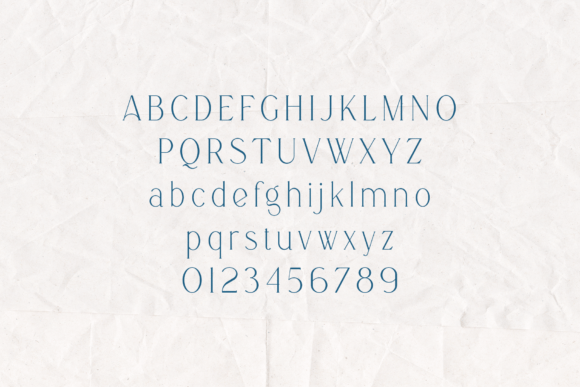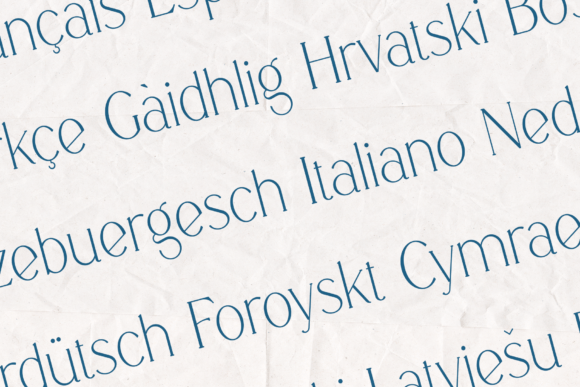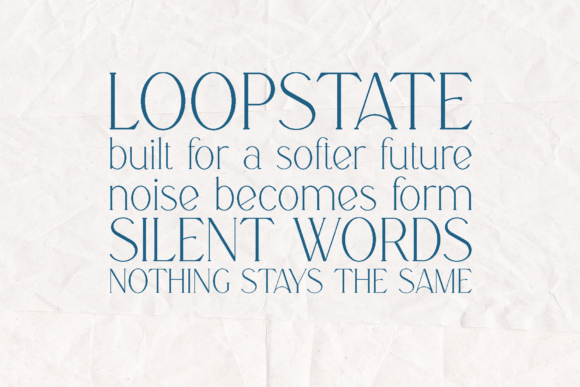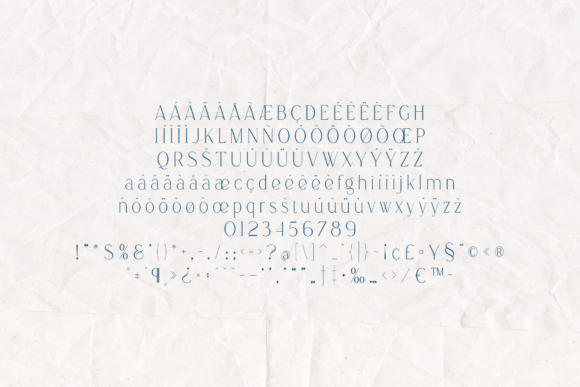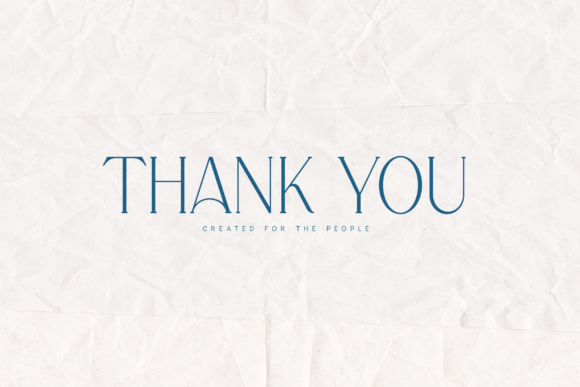
Boketto Font: Elevate Your Design with Elegant Contemporary Serif Typography
In the world of typography, few fonts manage to convey a sense of calm, poetry, and refinement. Boketto, an elegant contemporary serif font, is one such exceptional design that embodies these qualities. With its graceful curves, soft contrast, and gentle organic rhythm, Boketto is the perfect choice for designers seeking to create sophisticated and timeless visual storytelling.
Characteristics of Boketto Font
Boketto’s design is characterized by its delicate serifs, balanced proportions, and quiet sophistication. These features make it an ideal font for editorial design, book covers, branding, invitations, quotes, packaging, and other applications where elegance and atmosphere are paramount. The font’s subtle beauty, inspired by introspection, adds a layer of depth to any design, making it perfect for headlines, short passages, and expressive compositions.
Design Applications of Boketto
Boketto’s versatility makes it suitable for a wide range of design applications. Its elegant and refined nature makes it perfect for:
- Editorial design: Create stunning magazine layouts, articles, and features with Boketto’s elegant typography.
- Book covers: Give your book a sophisticated and eye-catching cover with Boketto’s beautiful serifs.
- Branding: Establish a strong brand identity with Boketto’s unique and memorable typography.
- Invitations: Create elegant and sophisticated invitations for special occasions, such as weddings, galas, and more.
- Quotes: Add a touch of elegance to your inspirational quotes and phrases with Boketto’s beautiful typography.
- Packaging: Elevate your product packaging with Boketto’s refined and sophisticated design.
Typography Features of Boketto
Boketto is more than just a beautiful font; it also offers a range of features that make it practical and versatile. Some of its key typography features include:
- Full character set: Boketto includes a comprehensive character set, ensuring that you have access to all the characters you need.
- Multilingual support: With extensive multilingual support, Boketto is suitable for use in a variety of languages and cultures.
- Numerals, punctuation, and special symbols: The font includes a range of numerals, punctuation marks, and special symbols, making it perfect for a wide range of design applications.
- PUA encoding: Boketto includes PUA encoding, making it easy to access special characters and decorative elements without additional software.